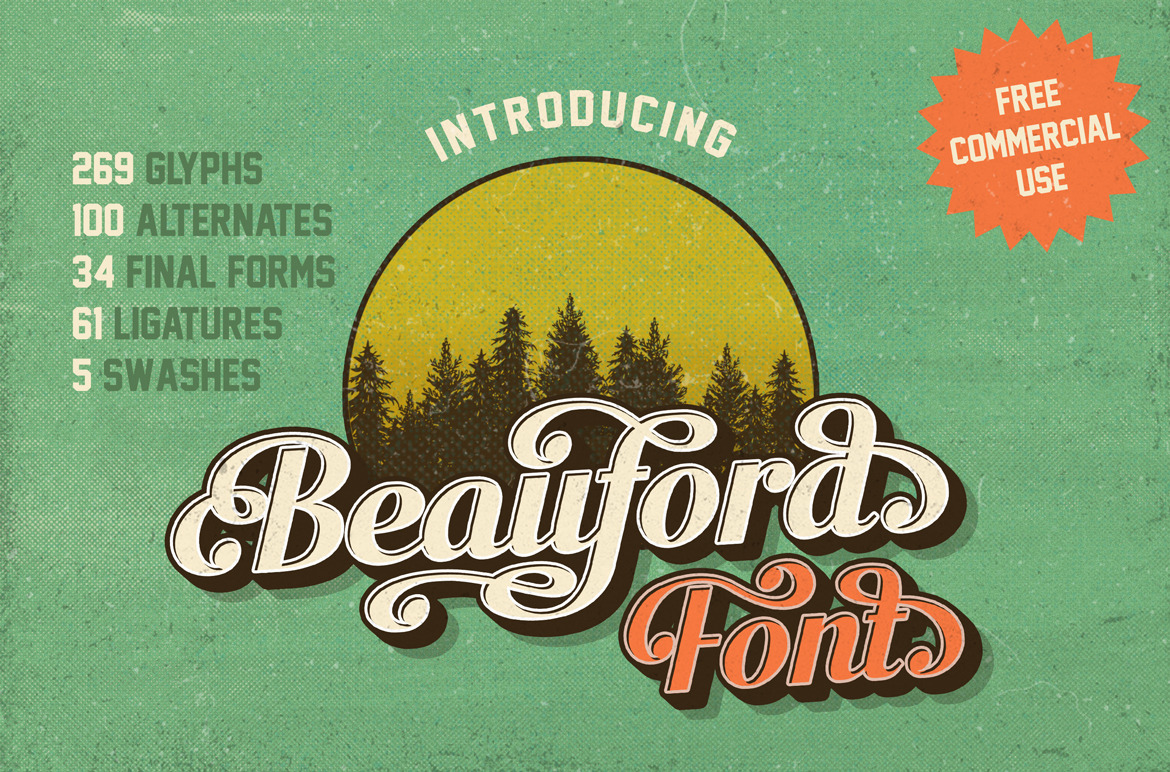
Beauford Font {Free Commercial Use}
Introducing new vintage display typeface it's call "Beauford". You are welcome to use it for various purposes: logos, headings, t-shirt, letterhead, signage, labels, posters etc.
Beauford font features:
- 269 glyphs
- 100 alternates
- 34 final forms
- 61 ligatures
- 5 swash